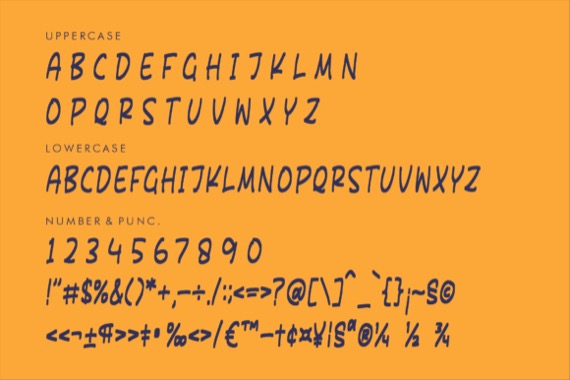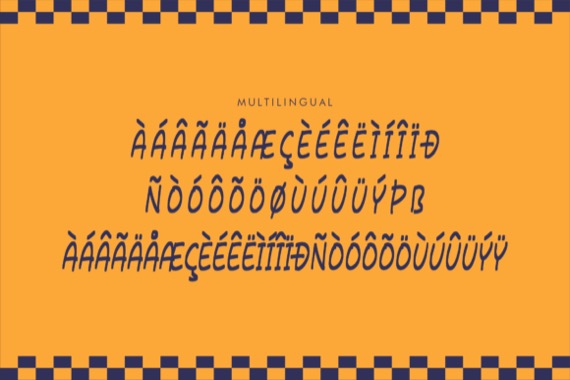
A classy and modern brush handwritten font from Perspectype, Playing Barnley is a cute and quirky display font. It will add an incredibly joyful touch to your designs. Add this beautiful display font to each of your creative ideas and notice how it makes them stand out!
Playing Barnley Display Font
Designer, Publisher: Perspectype